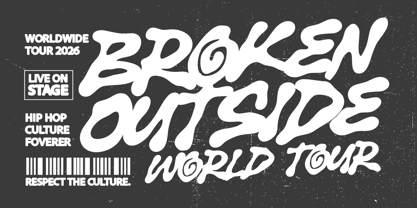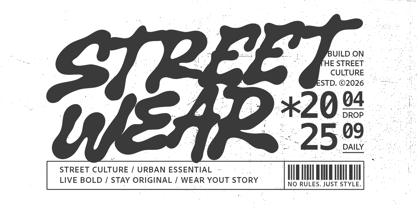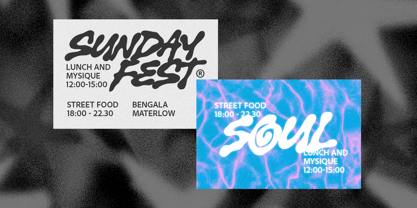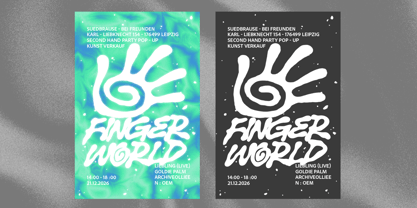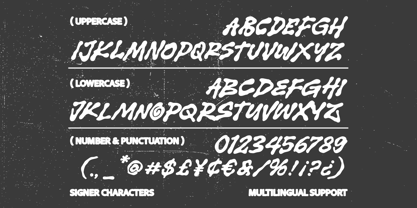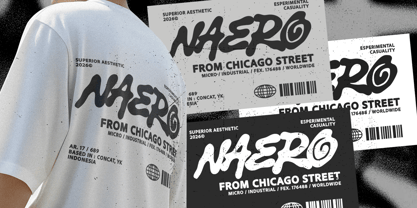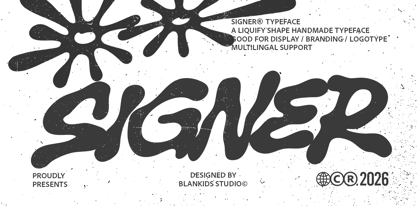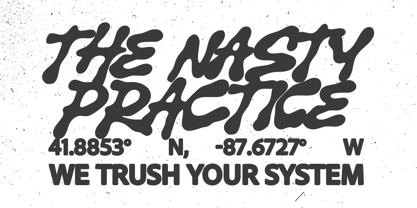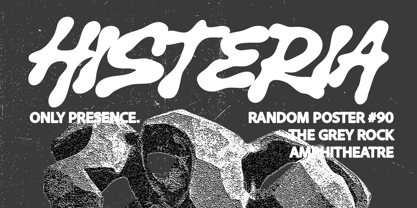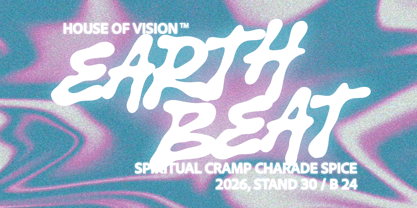
Signer
by Blankids
The Signer Font Family was designed by Bangkit Tri Setiadi and published by Blankids. Signer contains 3 styles and family package options. More about this family
Signer is a bold liquid display typeface that blends organic shapes with modern street aesthetics. Inspired by contemporary street culture, creative expression, and handcrafted lettering, Signer brings a fresh and energetic personality to every design.
Perfect for streetwear brands, music merchandise, creative branding, posters, album covers, packaging, social media graphics, and bold logo designs. Its fluid forms and handcrafted feel make it an excellent choice for projects that demand originality, confidence, and visual impact. Complete with multilingual support, Signer is built to help creatives create distinctive identities that stand out.